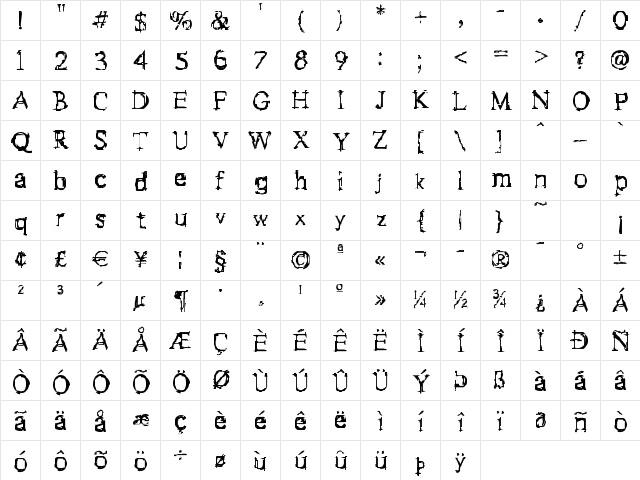
FStein Regular
Design Context for FStein
FStein is a composed and adaptable typeface that performs quietly and consistently across a wide range of design contexts.
Pro Tip: Use FStein in both headline and body roles to test its range before committing to a single application.